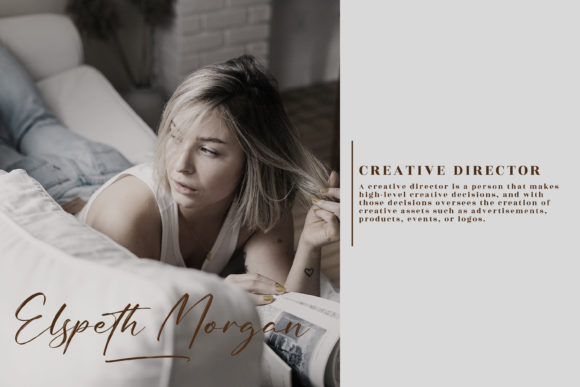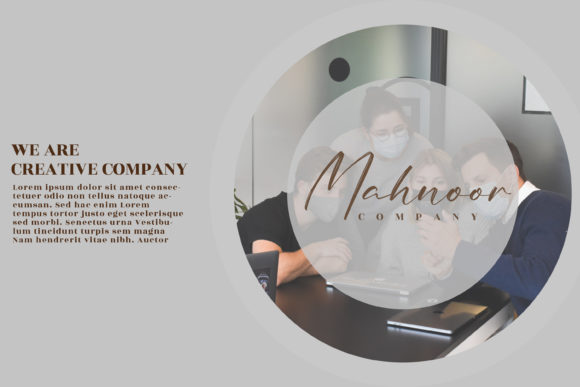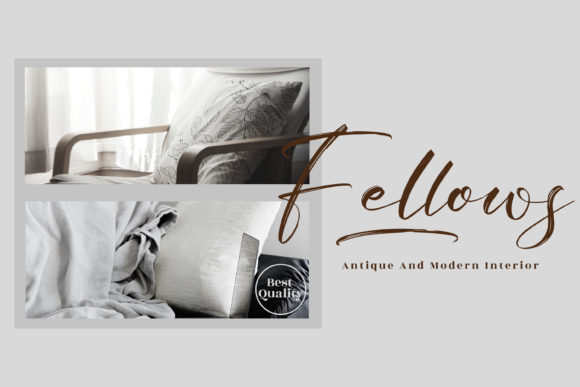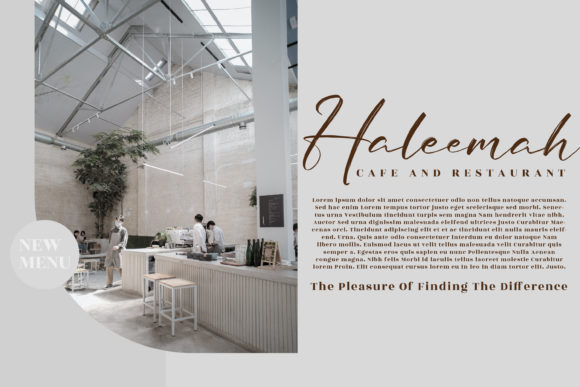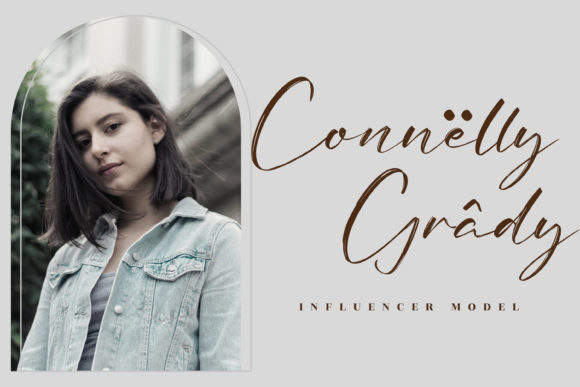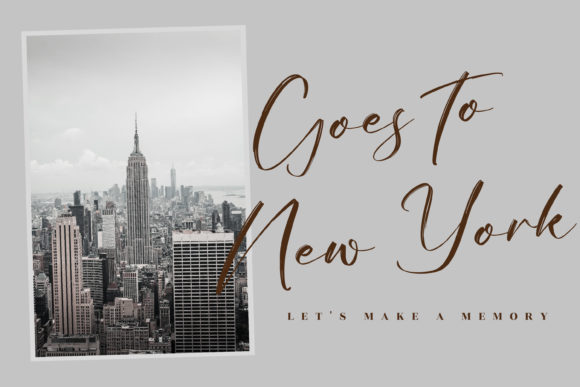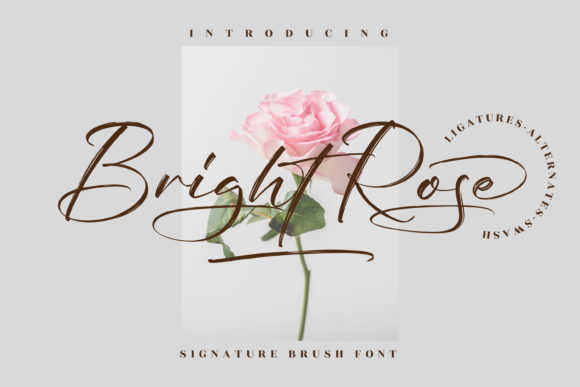
The Magic of Bright Rose Font: Elevate Your Designs with Elegance
Bright Rose is a lovely and delicate calligraphy typeface that adds a touch of luxury to any design project. Its characters dance along the baseline, creating a sense of fluidity and movement. In this article, I’ll share my honest review of Bright Rose Font, provide a practical guide on how to use it, and explore similar fonts that you might enjoy.
An Honest Review of Bright Rose Font
- ✨ Delicate and elegant calligraphy style
- ✅ PUA encoded for easy access to glyphs and ligatures
- 💫 Perfect for luxury brand designs, wedding invitations, and high-end packaging
- 🎨 Highly versatile and can be used for various design projects
While Bright Rose Font is an excellent choice for many design projects, there are a few minor quirks to be aware of:
- 🤔 Limited availability of bold or heavy weights, which may not be suitable for all design applications
The Designer Inspiration Behind Bright Rose Font
Bright Rose Font was crafted with love and attention to detail by a talented type designer. Inspired by traditional calligraphy and the art of lettering, this font embodies the elegance and sophistication of luxury brands. Whether you’re designing a logo, packaging, or marketing materials, Bright Rose Font is sure to elevate your project.
| Font Name | Bright Rose Font |
| Author | Glorytype Studio |
PUA (Private Use Area) encoding allows font designers to include additional glyphs and characters that aren’t part of the standard Unicode range. This means that Bright Rose Font users can access a wide range of glyphs and ligatures with ease, making it easier to create beautiful, unique designs.
Q: Is Bright Rose Font suitable for body text or long-form content?
While Bright Rose Font is stunning, it’s primarily designed for display purposes or short-form content. For body text or long-form content, you may want to consider a more legible font.